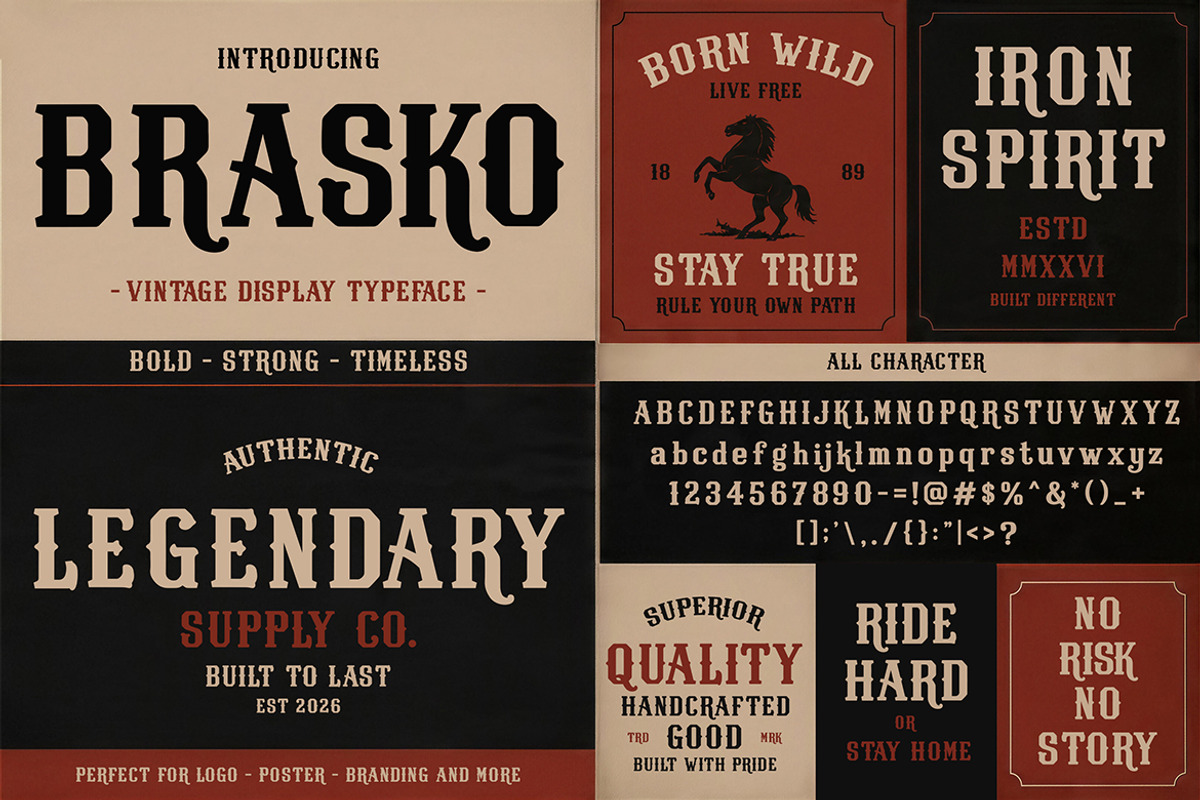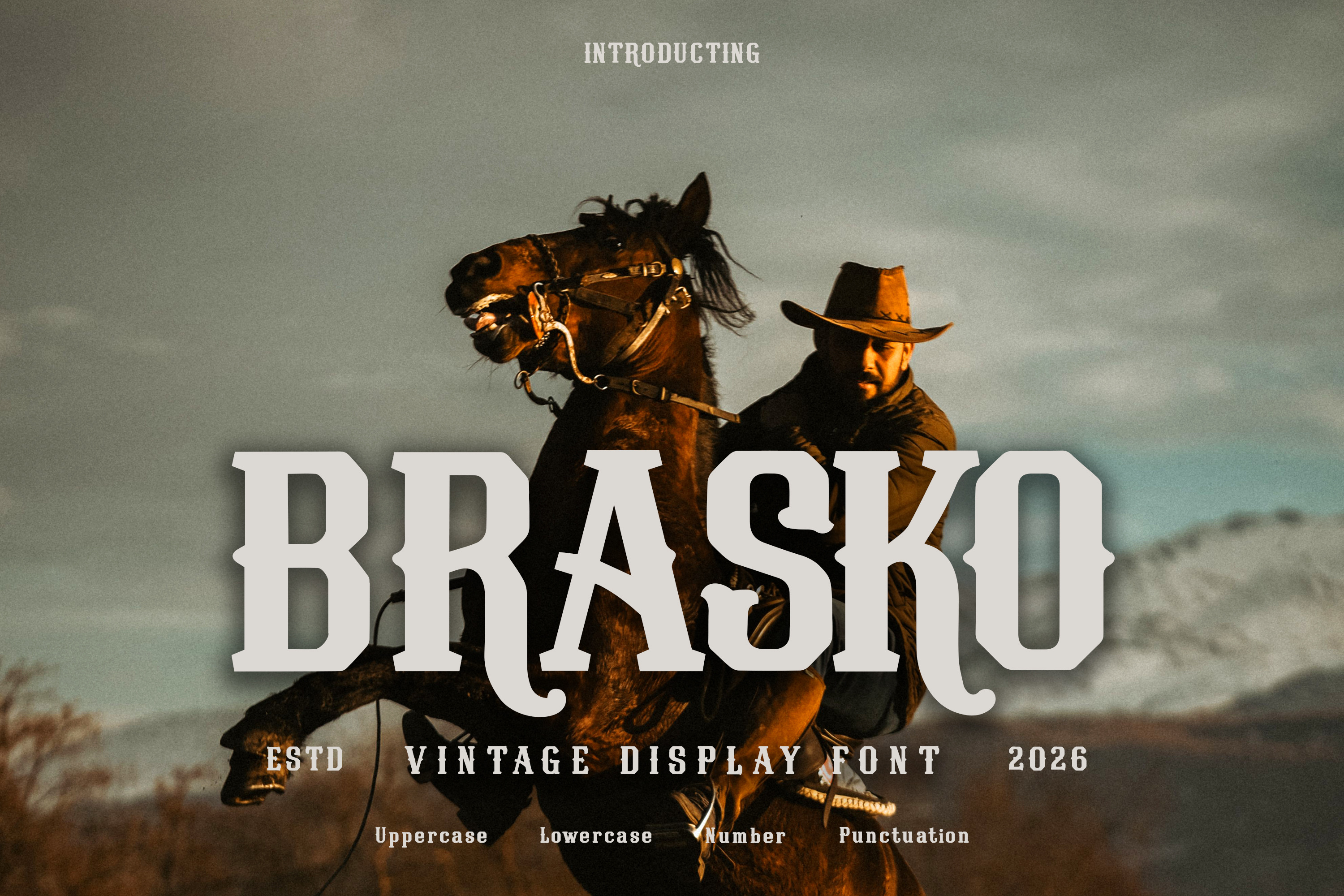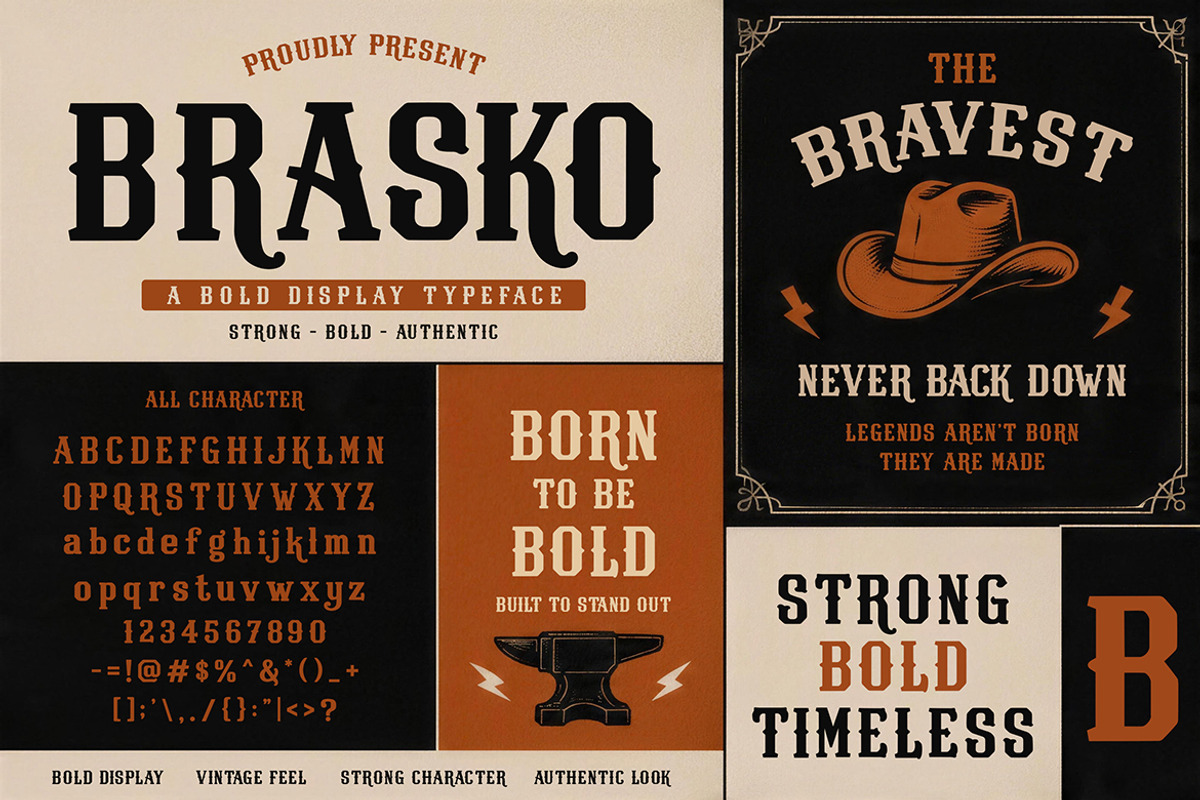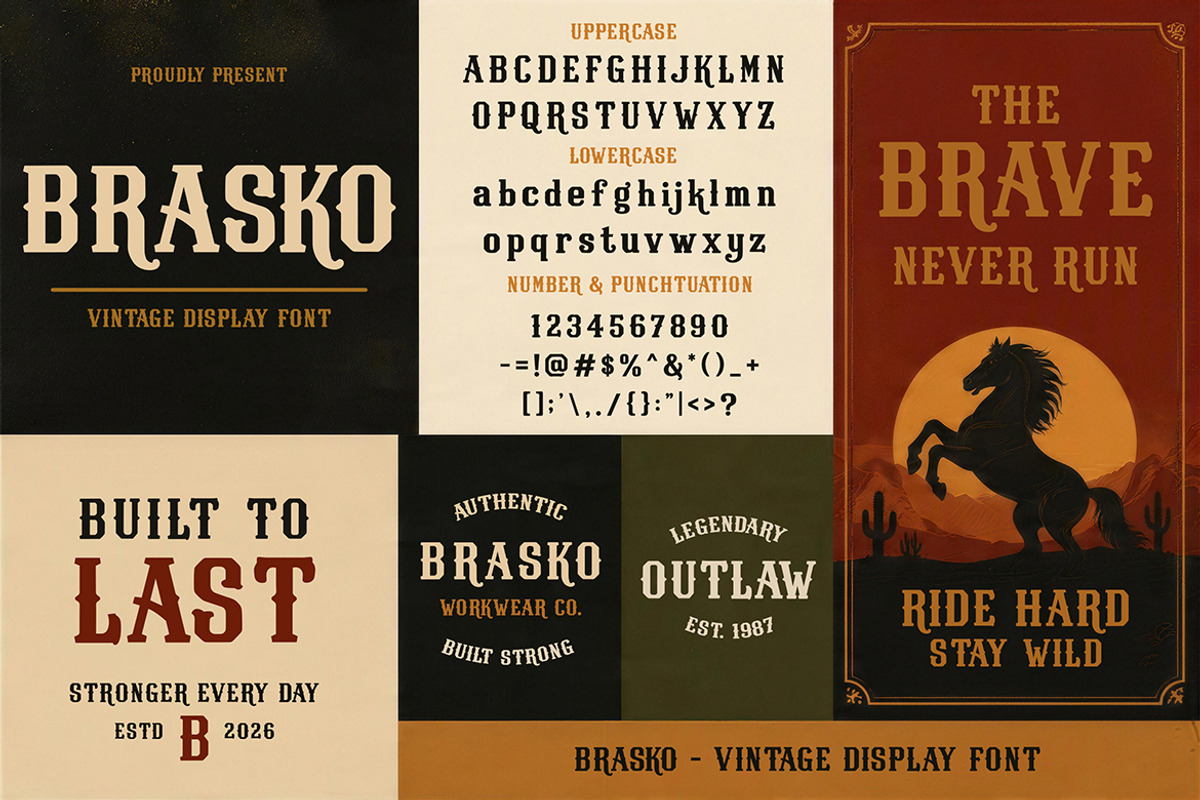
Brasko - Vintage Display Font
Brasko is a bold vintage display typeface inspired by classic western typography, rugged heritage graphics, and timeless Americana aesthetics. Featuring strong slab-like forms, distinctive decorative serifs, and a confident handcrafted character, this font delivers a powerful visual presence for designs that need authenticity, strength, and old-school charm. Its bold personality makes Brasko especially effective for branding, posters, apparel, packaging, and outdoor-inspired projects.
Western and vintage branding
Posters, signage, and bold headlines
Apparel, merchandise, and badge designs
Craft, coffee, and heritage packaging
Outdoor, ranch, and adventure-themed projects
With its rugged serif structure and authentic vintage attitude, Brasko gives every project a bold, timeless, and memorable character.